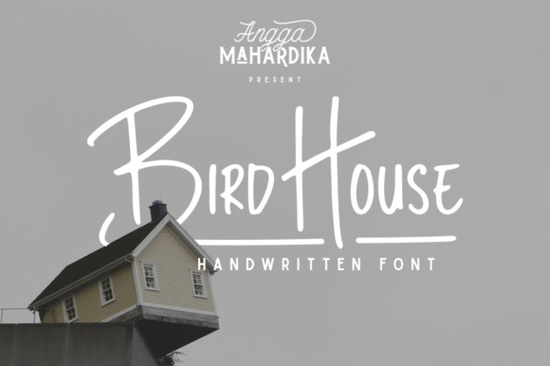
If you're looking for a handwritten font that feels personal and approachable without sacrificing legibility, the Bird House Font is worth a closer look. Designed with marker-like strokes, it captures the warmth of hand-lettering while staying clean enough for logos, packaging, social graphics, and even printable crafts. Whether you run a small business, create custom merchandise, or just enjoy adding personality to your designs, Bird House offers a friendly, authentic vibe that works across many projects.
What makes Bird House different from other handwritten fonts?
Many script or brush-style fonts lean heavily into dramatic swashes or uneven baselines, which can limit where they’re usable. Bird House avoids that by keeping its letterforms consistent and grounded ideal when you need something that reads well at smaller sizes or in body text. The subtle texture mimics real marker ink without overwhelming your layout, making it versatile for both digital and print use.
It pairs especially well with clean sans-serif companions. If you're building a brand identity or designing product labels, consider combining Bird House with something neutral like the Sweet Home Font. That pairing gives you contrast without clashing one brings personality, the other clarity.
Who should use Bird House Font?
- Small business owners creating logos, business cards, or signage who want a handcrafted feel without hiring an illustrator.
- Print-on-demand sellers designing mugs, tote bags, or greeting cards where a casual, inviting tone connects with customers.
- Crafters and hobbyists making invitations, planner stickers, or wall art who appreciate fonts that mimic real handwriting.
- Graphic designers looking for an authentic-looking script that doesn’t require extensive kerning adjustments.
Because it’s built with consistent spacing and clear character shapes, Bird House reduces the guesswork often involved with decorative fonts. You won’t spend extra time fixing awkward letter combinations it’s ready to use right after installation.
How to pair Bird House with other typefaces
Handwritten fonts shine when balanced with something structured. Since Bird House lives in the sans-serif fonts category (despite its script appearance), it actually complements geometric or humanist sans-serifs beautifully. Try it alongside fonts like Montserrat, Lato, or even the Bird House companion set if you’re aiming for cohesive branding across headlines and body copy.
Avoid pairing it with other scripts or overly ornate typefaces this can create visual noise. Instead, let Bird House be the expressive element while your secondary font handles readability.
Real-world uses that work well
Here are a few practical applications where Bird House performs reliably:
- Branded packaging – Coffee bags, soap labels, or bakery boxes benefit from its organic, hand-done aesthetic.
- Social media quotes – The natural flow makes inspirational or promotional posts feel genuine, not stock-photo generic.
- Wedding stationery – Save-the-dates, menus, or place cards gain warmth without looking messy.
- Etsy shop banners – Stands out among competitors using overused script fonts.
Just remember: while Bird House has charm, it’s not meant for long paragraphs. Use it for headlines, short phrases, or accent text where personality matters most.
Bird House comes in standard formats (OTF and TTF), so it works with most design software Adobe Creative Suite, Canva (via upload), Affinity apps, Silhouette Studio, and Cricut Design Space. Always verify your software supports OpenType features if you plan to use stylistic alternates or ligatures, though the basic version is fully functional without them.
Quick checklist before using Bird House in your next project
- ✅ Test it at your final output size especially if printing small (under 12pt).
- ✅ Pair it with a simple sans-serif for balance.
- ✅ Avoid all-caps usage; it’s designed for mixed case to maintain natural rhythm.
- ✅ Compare it to similar options like Sweet Home to ensure it fits your brand voice.
Fonts like Bird House succeed when they solve a real design problem: adding humanity without sacrificing function. If your project needs that touch of handmade sincerity but still has to look professional you’ve got a solid option here.